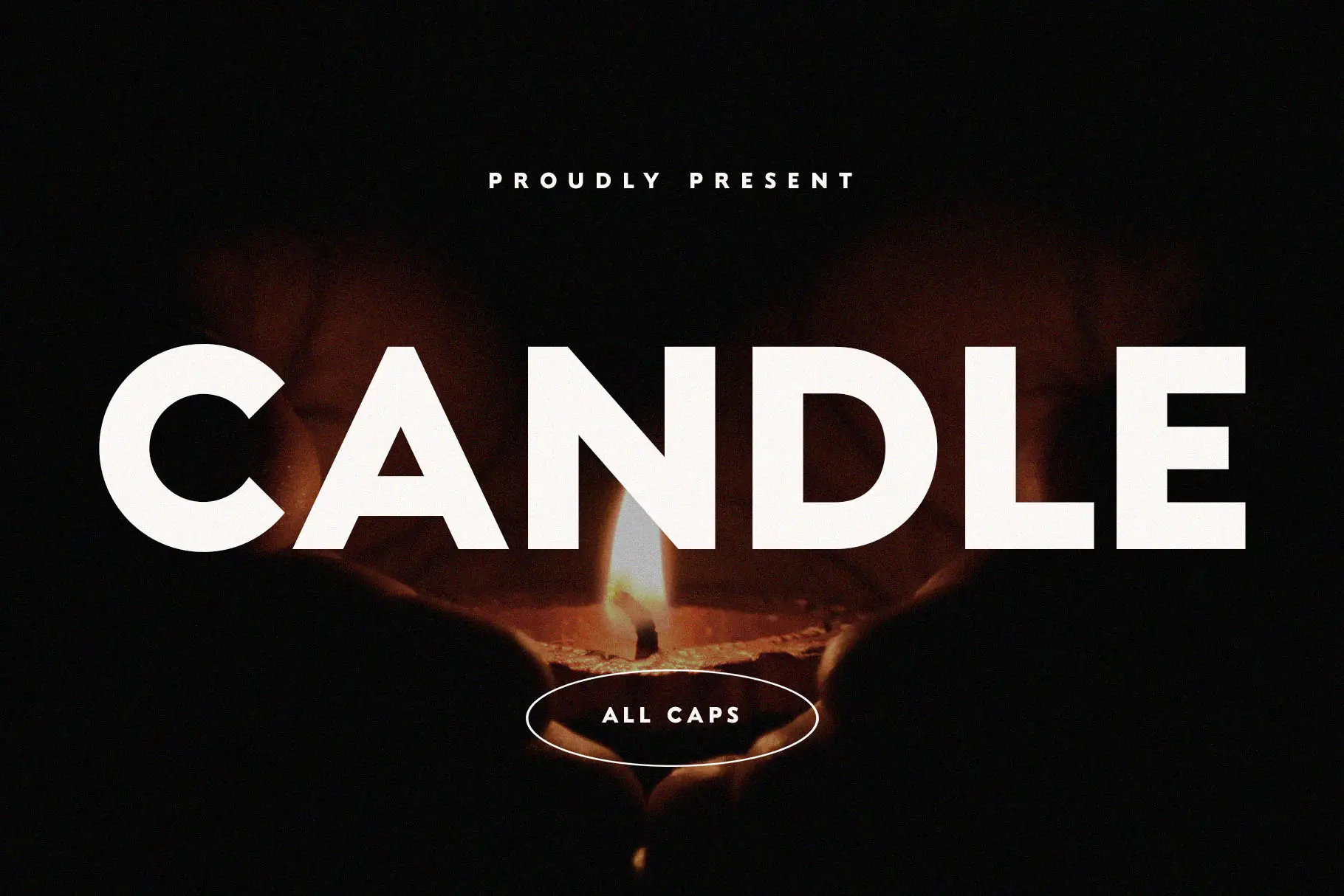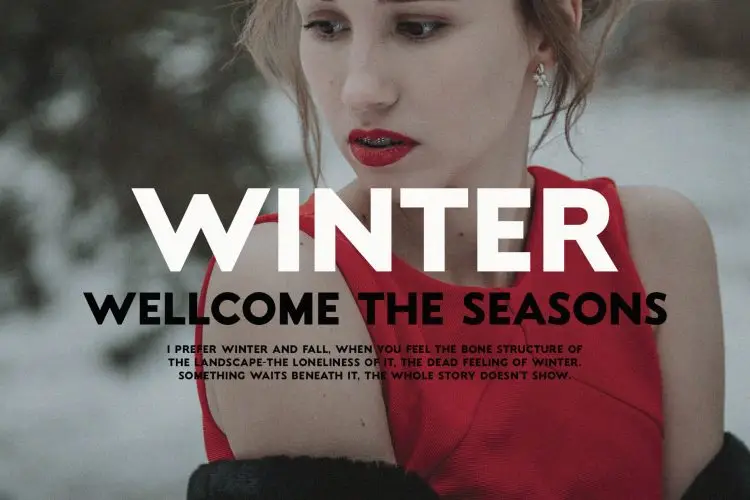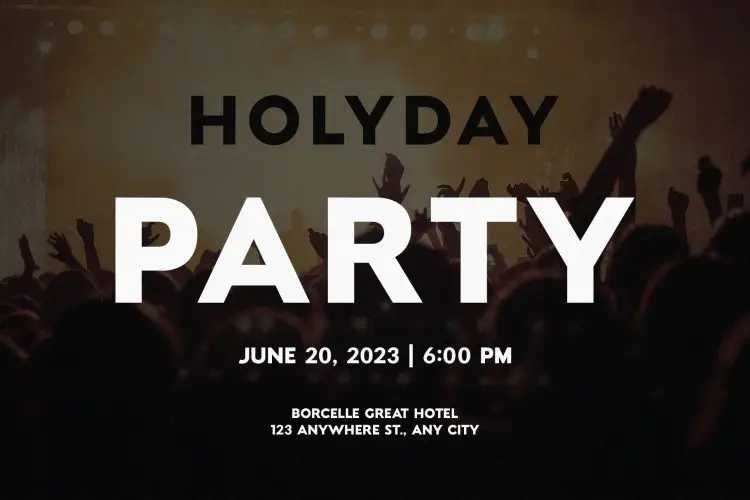
Modern All Caps Font – Candle
Modern All Caps Font - Candle
A modern all caps font designed to add a touch of elegance to your designs. With its clean and contemporary style, Candle is perfect for websites, logos, magazines, and social media posts. Whether you’re crafting a logo, building a website, or creating social media content, Candle brings sophistication and refinement to your projects, making it the ideal choice for a modern, all caps design aesthetic.
Ideal for:
• Modern Designs
• Web Design Projects
• Advertising Campaigns
• Social Media Designs
• Personal Branding
• Magazine
Features:
• Ready for Creative Expression
• Immaculately Crafted Letters
Candle is a modern all caps font that combines sophistication and clarity. Ideal for web design, logos, and branding, it elevates any project with a refined touch.